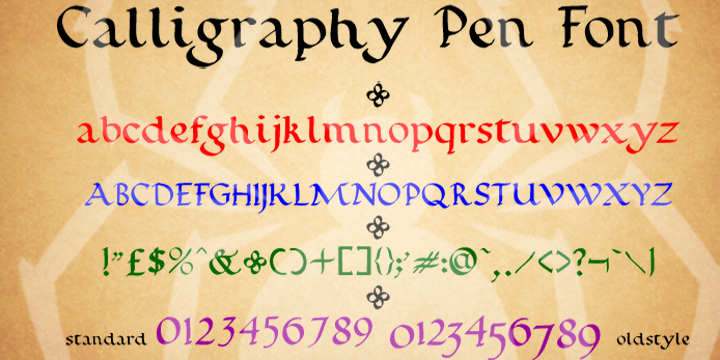
Font name: | Calligraphy Pen |
Author: | SpideRaYsfoNtS |
Note by SpideRaYsfoNtS | |
Calligraphy is an ancient writing technique using flat edged pens to create artistic lettering using thick and thin lines depending on the direction of the stroke. I always wanted to have a go at this creative art form so I created a version for my own personal use. It turned out better than I had expected so I also created a new typeface called Calligraphy Double Pencil. For the fully kerned OTF embeddable commercial version with numbers and accented glyph's please visit my Etsy Store @ http://etsy.me/2dl4MCR |